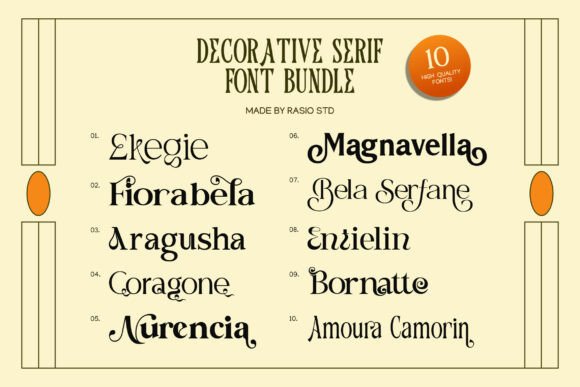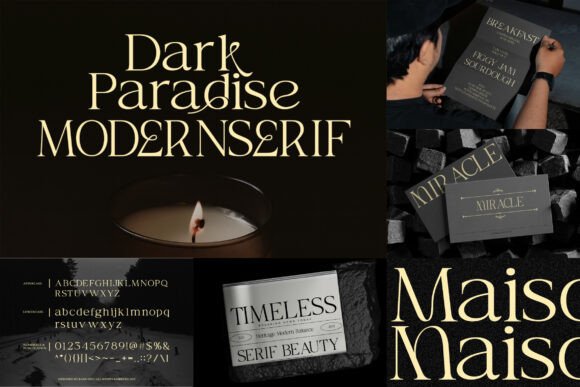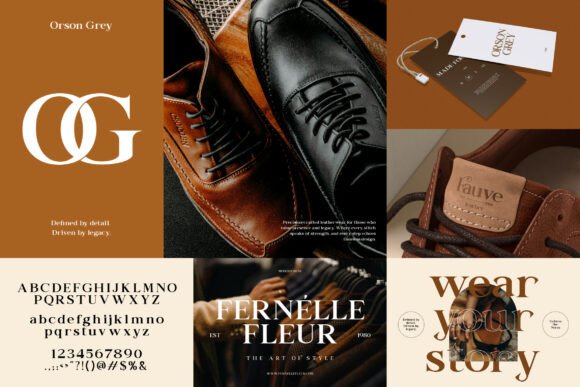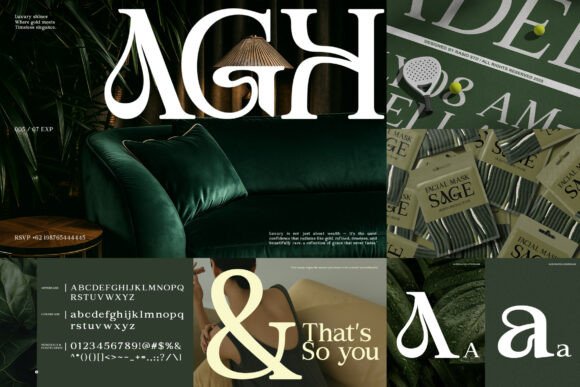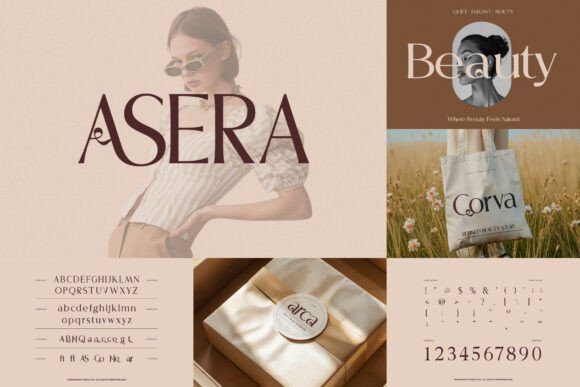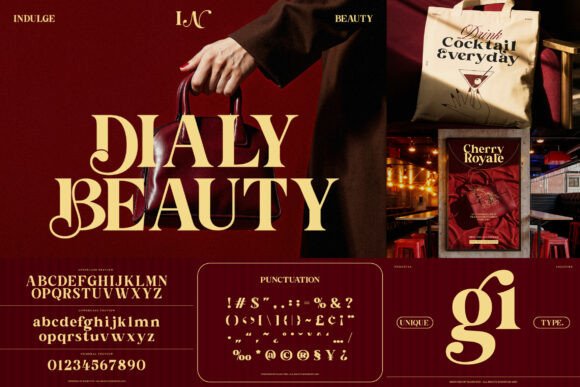
The Power of Decorative Serif Fonts: Elevate Your Designs with Elegance and Character
I’ll never forget the time I was working on a branding project for a high-end boutique hotel. My client wanted a font that exuded luxury, sophistication, and a touch of vintage charm. I spent hours scouring the internet for the perfect typeface, but nothing seemed quite right. That was until I stumbled upon a beautiful decorative serif font that changed the game. In this article, I’ll share my love for decorative serif fonts, review the Decorative Serif Font Bundle, and provide a practical guide on how to use these stunning typefaces in your designs.
What Makes Decorative Serif Fonts So Special?
Decorative serif fonts are a type of typeface that combines the elegance of serif fonts with the flair of decorative elements. They’re perfect for adding a touch of sophistication and whimsy to your designs. Whether you’re working on a branding project, packaging design, or editorial layout, decorative serif fonts can help you create a unique and memorable visual identity.
Honest Review: The Decorative Serif Font Bundle
The Decorative Serif Font Bundle is a curated collection of ornamental serif typefaces designed to bring character, elegance, and artistic detail into your designs. Here’s what I love about it:
- ✨ Unique and expressive letterforms with decorative accents
- ✅ High-quality, carefully crafted details that make every word feel distinctive and timeless
- ✅ Perfect for display use in headlines, titles, and visual compositions where style and mood matter most
While the font bundle is amazing, there are a few quirks to keep in mind:
- ⚠️ Some fonts may have limited legibility at small sizes, so it’s best to use them for display purposes only
The Decorative Serif Font Bundle was inspired by classic typography, vintage aesthetics, and refined decorative forms. The designer wanted to create a collection of fonts that would bring character, elegance, and artistic detail into designs. With a focus on expressive letterforms and unique personality, this font bundle is perfect for designers who want to add a touch of sophistication and whimsy to their work.
| Font Name | Decorative Serif Font |
| Are the fonts suitable for body text? | No, the fonts in the Decorative Serif Font Bundle are best used for display purposes, such as headlines, titles, and visual compositions. |